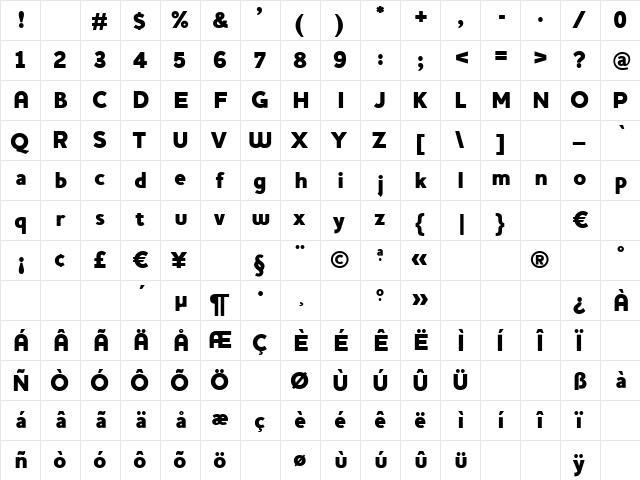
HouschkaHeavy Regular
Design Context for HouschkaHeavy Typeface
HouschkaHeavy is a composed and adaptable typeface that performs quietly and consistently across a wide range of design contexts.
Pro Tip: Use HouschkaHeavy in both headline and body roles to test its range before committing to a single application.